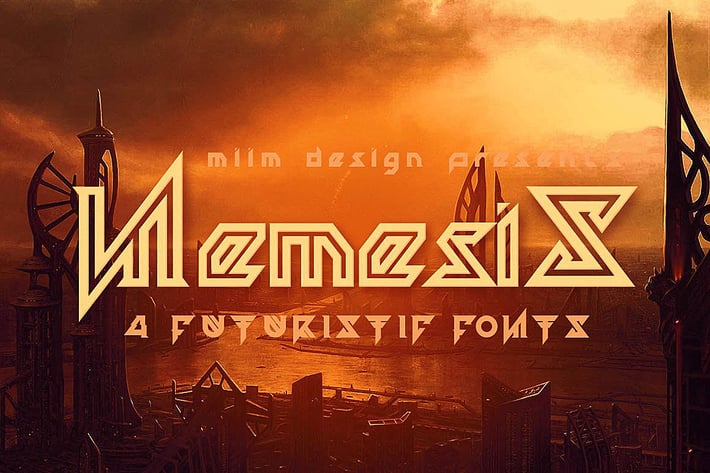
Nemesis - Futuristic Font
Futuristic, industrial & grunge font for your new projects. Great for modern or futuristic style projects! 4 font files (otf & ttf) - regular & grunge, inline & inline grunge.